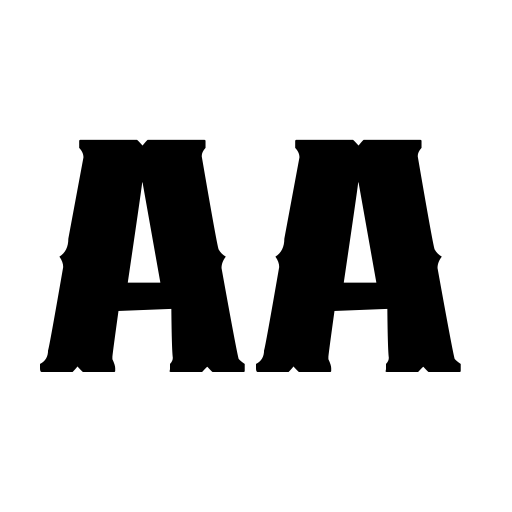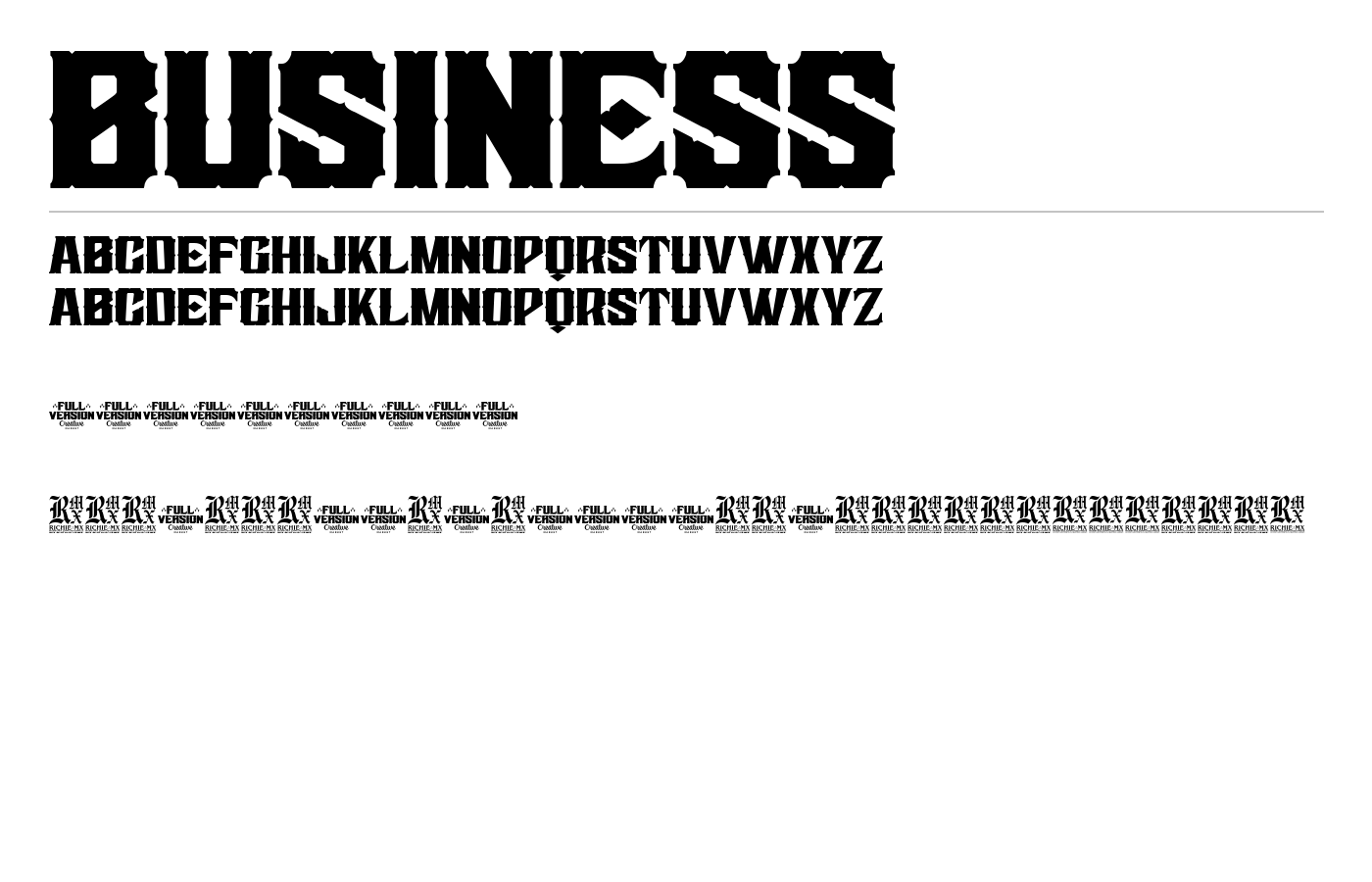
Business Font is a bold, condensed slab serif typeface with a strong, geometric structure and high contrast between thick and thin strokes. Its sharp, blocky serifs and uppercase-only design give it a sturdy, vintage Western feel that works well for eye-catching headlines, logos, and posters seeking a tough, impactful presence. This font is ideal for brands or projects aiming to convey strength, tradition, and boldness in a dramatic and memorable way.
Business Font
About Business Font